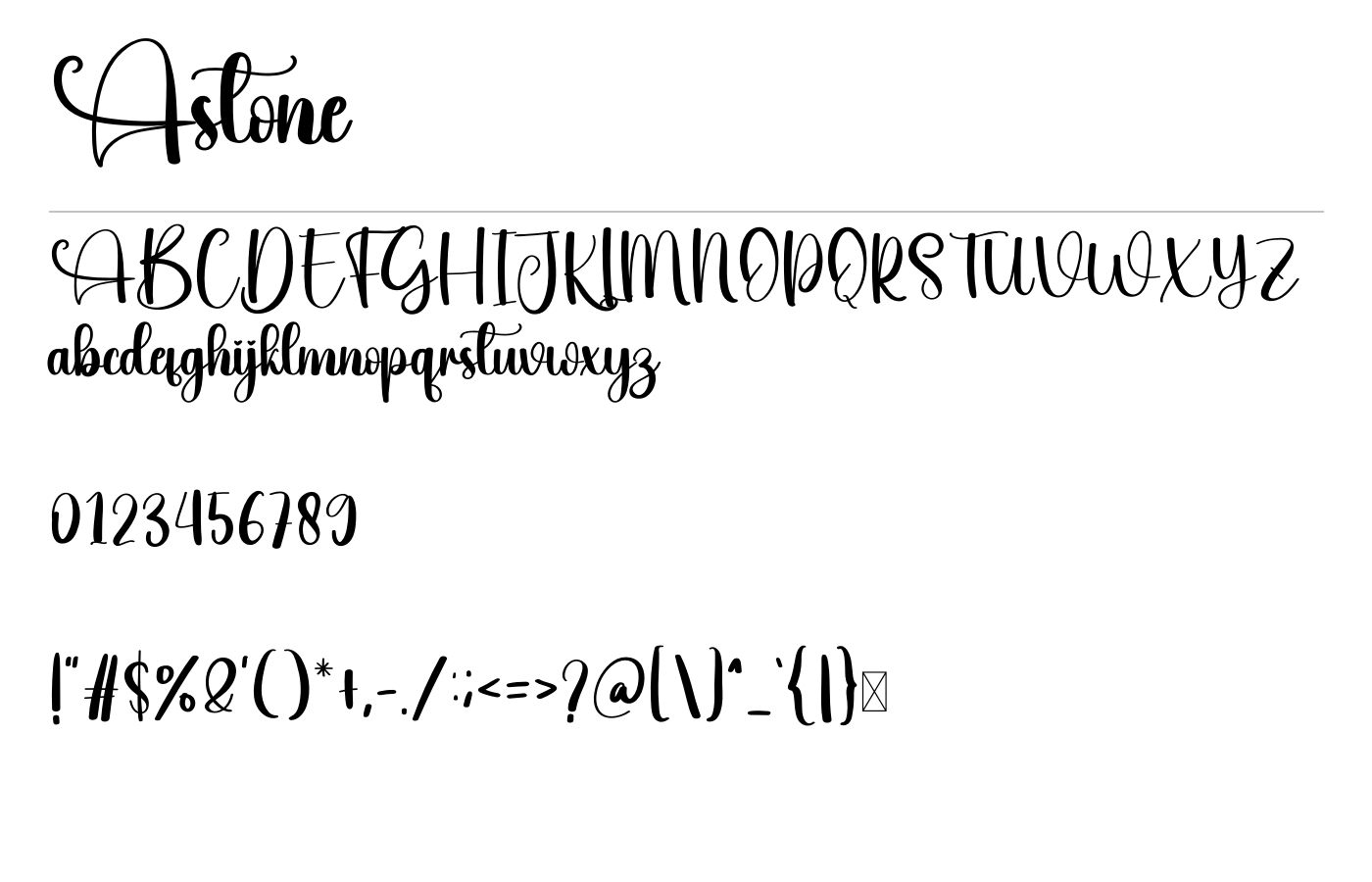
Astone is a playful and elegant script font featuring tall, slender letterforms with delicate, swirling flourishes that add a charming, handcrafted feel. Its smooth, semi-connected style makes it ideal for invitations, branding, and creative projects where a friendly yet stylish personality is desired. This font works beautifully for headlines and decorative text, bringing a touch of whimsy and sophistication.
Astone Font